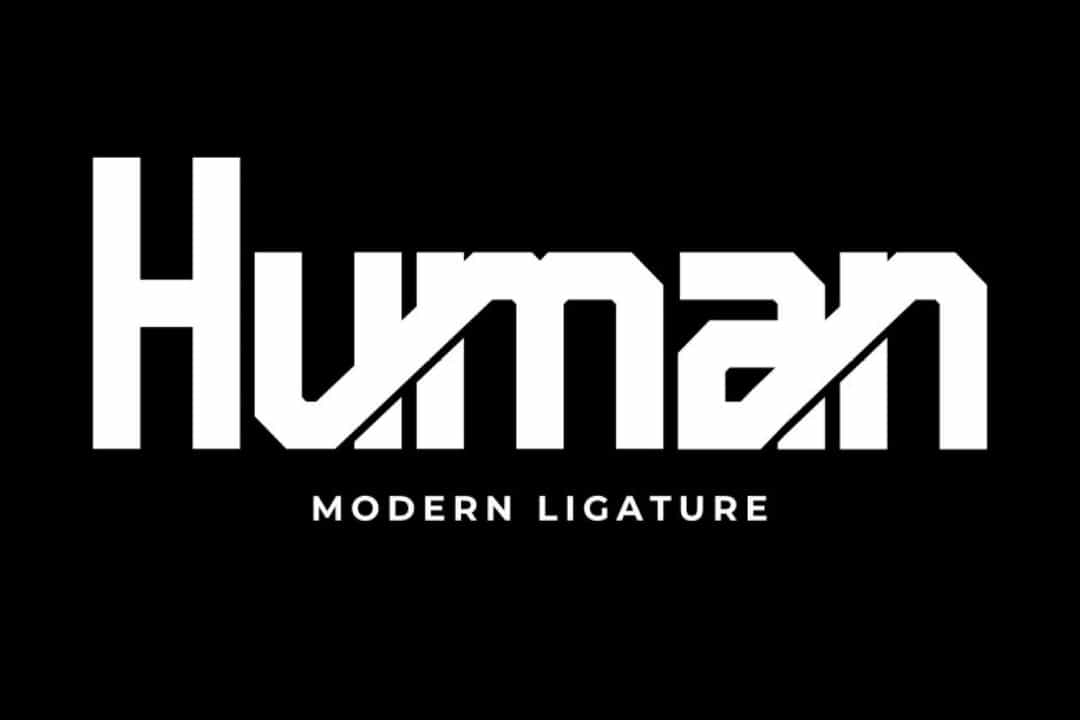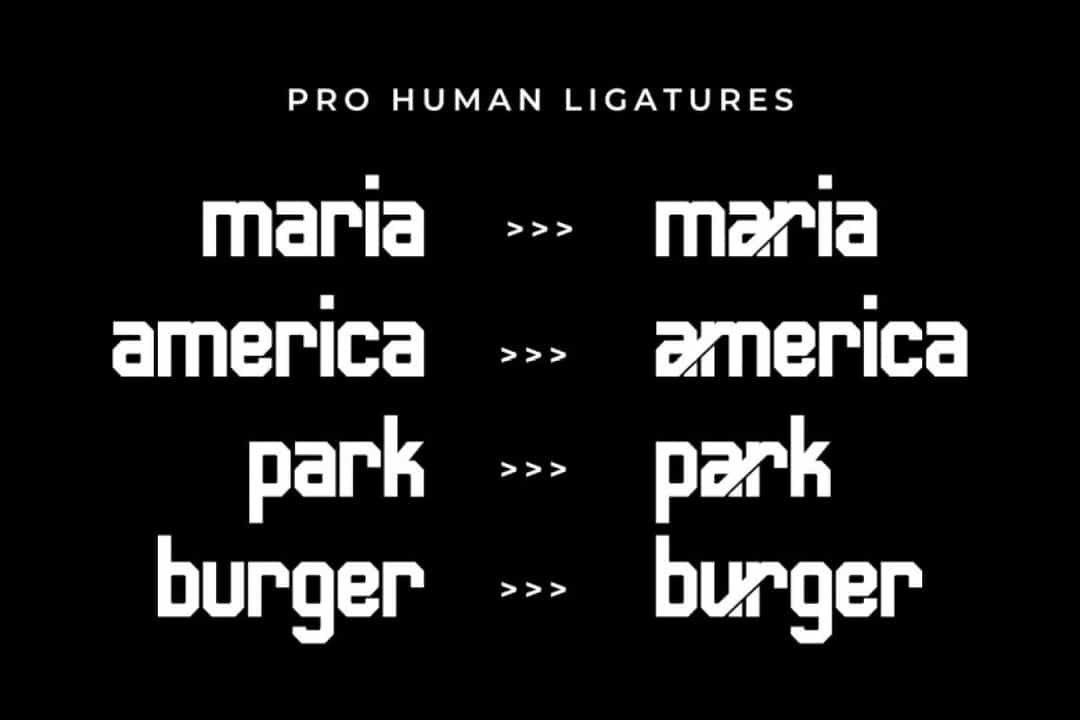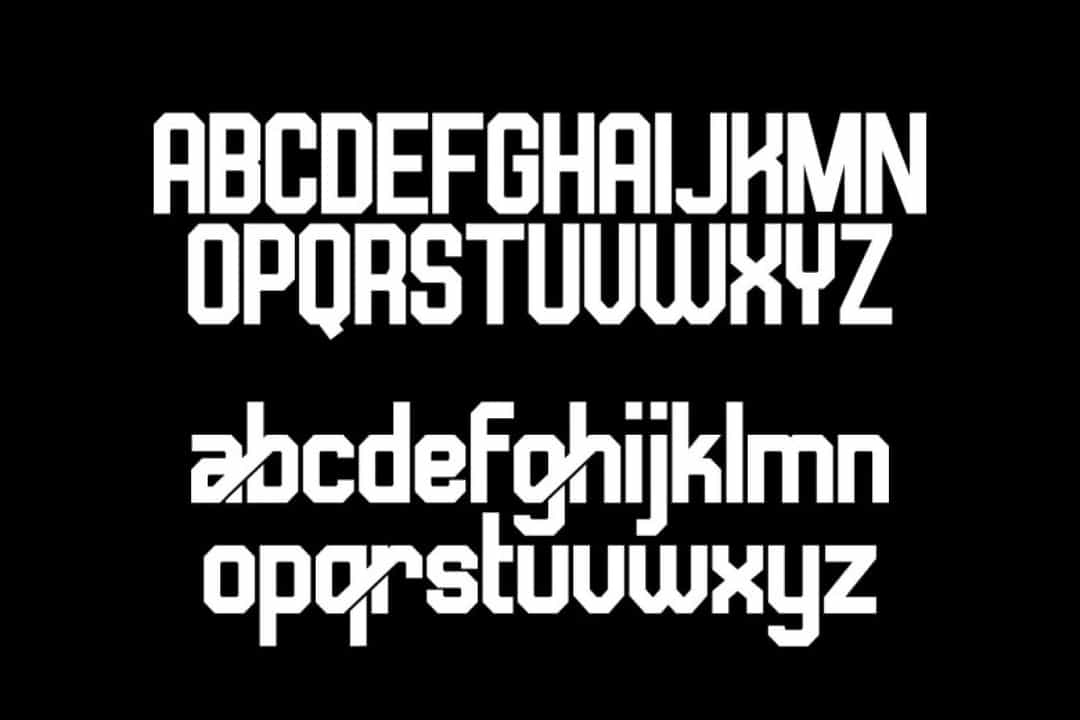
Human Display Font is carefully crafted for exceptional aesthetic appeal. Bean fonts can be utilized in a wide variety of projects ranging from printing for wedding receptions and ceremonies to advertisements posters campaigns book titles and more.